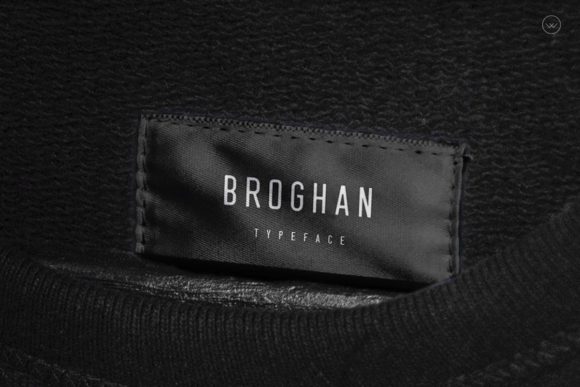
Dive into the realm of captivating content, where words dance with elegance and clarity, and headlines ignite curiosity like never before. Introducing Broghan Font, a masterpiece crafted by Webhance, designed to elevate your blog post titles to dizzying heights of engagement. Brace yourself for an explosion of creativity as Broghan transforms your words into visual symphonies, leaving your readers spellbound and eager for more.
With its inherent simplicity and organic charm, Broghan exudes a timeless allure that transcends fleeting trends. Its sans serif strokes, clean lines, and perfectly balanced proportions create a harmonious visual experience that complements any design aesthetic. Whether you're crafting blog posts, social media posts, or captivating marketing materials, Broghan will effortlessly elevate your words, making them shine brighter than the stars in the night sky.
Unleash the boundless versatility of Broghan, a font that effortlessly adapts to a myriad of creative projects. From sleek and modern designs to whimsical and playful compositions, Broghan seamlessly blends into your vision, becoming an integral part of your storytelling. Its adaptability knows no bounds, allowing you to effortlessly create visually stunning content that captivates audiences across diverse platforms.
Experience the transformative power of Broghan, a font that breathes life into your words. Its carefully crafted characters possess an innate charm that draws readers in, creating an immersive experience that keeps them captivated from the first letter to the last. Broghan's inherent legibility ensures that your message is conveyed with crystal-clear precision, leaving no room for misinterpretation or confusion.